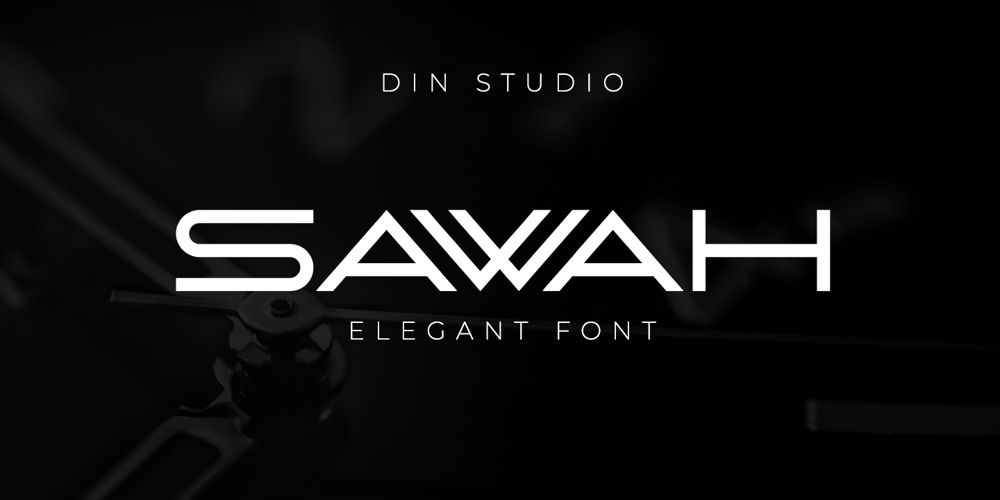
Sawah Font Family was designed by Donis Miftahudin and published by Din Studio. Sawah contains 1 styles and family package options. Sawah is a modern and elegant display font. It celebrates abstract shapes in all their eclectic beauty. This font will look truly outstanding in a wide range of contexts. It is the best for logos, branding and quotes.Featured : Accents (Multilingual characters) PUA encoded Numerals and Punctuation (OpenType Standard) Thank you for downloading premium font from Din Studio.